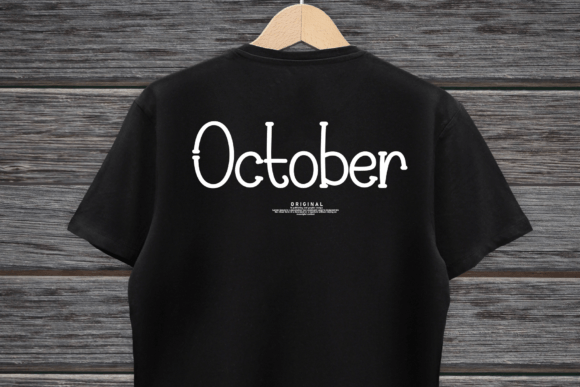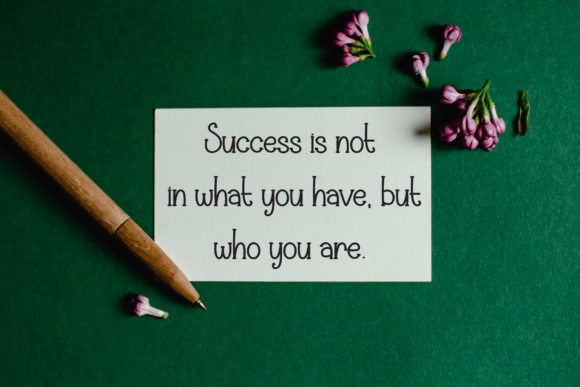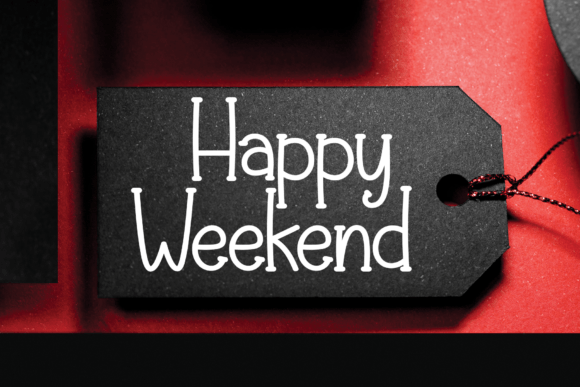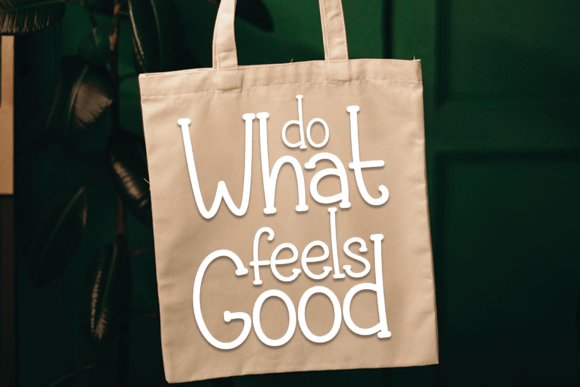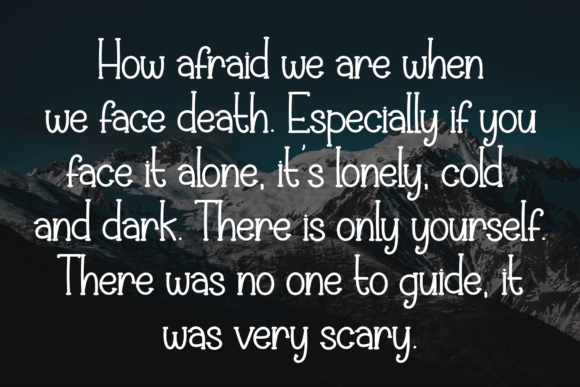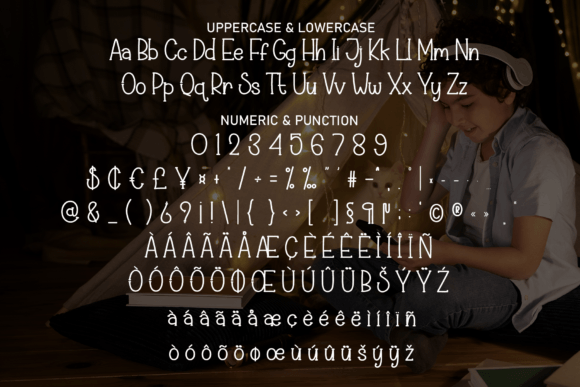
Introduction to Night Stories Font
Remember that moment when you’re working on a design project, and you’re struggling to find the perfect font to convey the mood and atmosphere of your creative vision? For me, it’s like searching for a missing puzzle piece – until I stumbled upon the Night Stories Font, everything fell into place. This enchanting, handmade display font is a game-changer for designers seeking to add a touch of magic to their projects.
What makes Night Stories Font truly special is its unique, playful style, which effortlessly evokes a sense of warmth and coziness. Whether you’re crafting an invitation, a poster, or any other design that requires a dash of creativity, this font is an absolute must-have. With its high-quality design and transparent background, it’s a valuable resource for designers who want to elevate their work to the next level. And the best part? You can download it for free, making it an accessible design resource for creatives of all levels.
Key Features of Night Stories Font
- Unique, handwritten font style ideal for creative projects and design resources
- Includes 6 styles, each with a different flair and personality
- Designed with a modern, elegant feel, perfect for titles, headings, and quotes
- Can be used in a variety of contexts, from digital design to print materials
Honest Review: Night Stories Font
I recently stumbled upon the Night Stories Font and I’m excited to share my thoughts on this design resource. As a designer, I’m always on the lookout for high-quality fonts that can elevate my creative projects. The Night Stories Font delivers in terms of aesthetic appeal and usability.
- ✨ Elegant and sophisticated design that’s perfect for luxury brands and creative projects
- ✨ A wide range of weights and styles to choose from, making it versatile for various design needs
- ✨ High-quality glyphs and transparent background, allowing for seamless integration with any design
- ⚠️ Limited support for certain languages, which might be a concern for designers working on multilingual projects
- ⚠️ Some users may find the font too ornate or overused, which can affect its effectiveness
Overall, I’m impressed with the Night Stories Font and would recommend it to designers looking for a high-quality, elegant font for their creative projects. While it has some limitations, its strengths make it a valuable addition to any design resource library.
The Night Stories Font is a versatile design resource that can be used in a variety of creative projects, such as book covers, movie posters, and social media graphics. Its high quality and transparent background make it a great choice for designs that require a unique and eye-catching look.